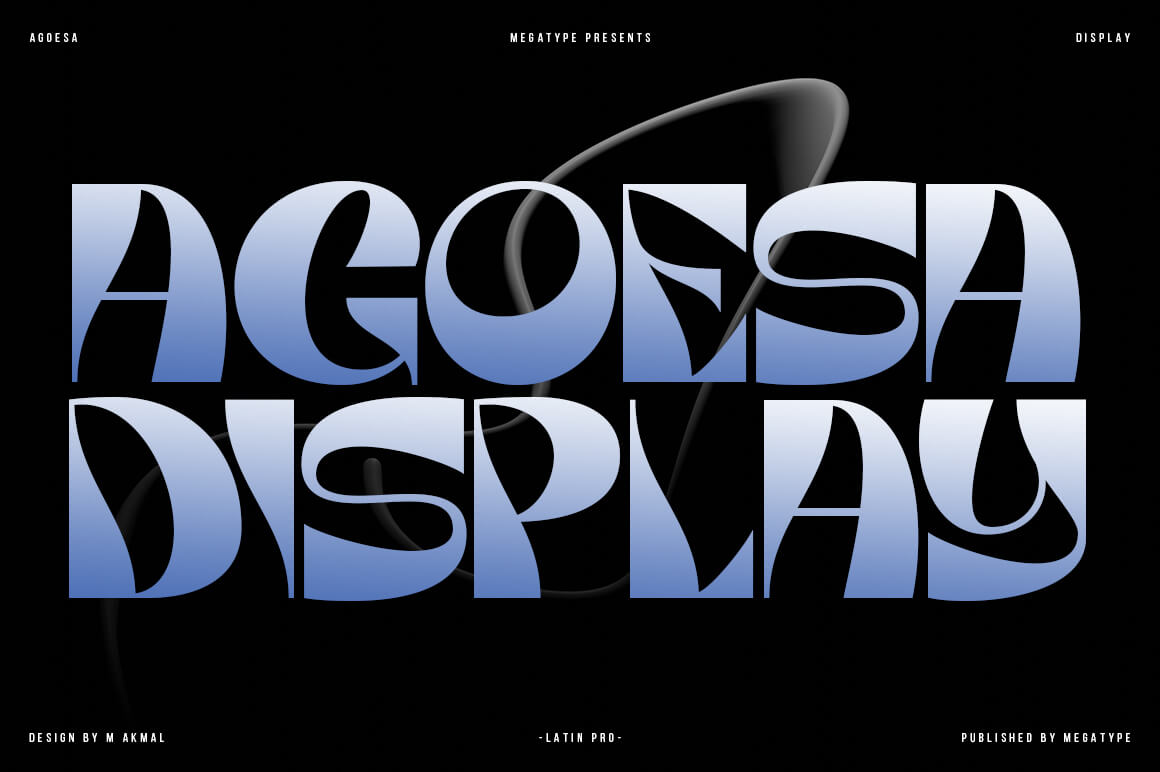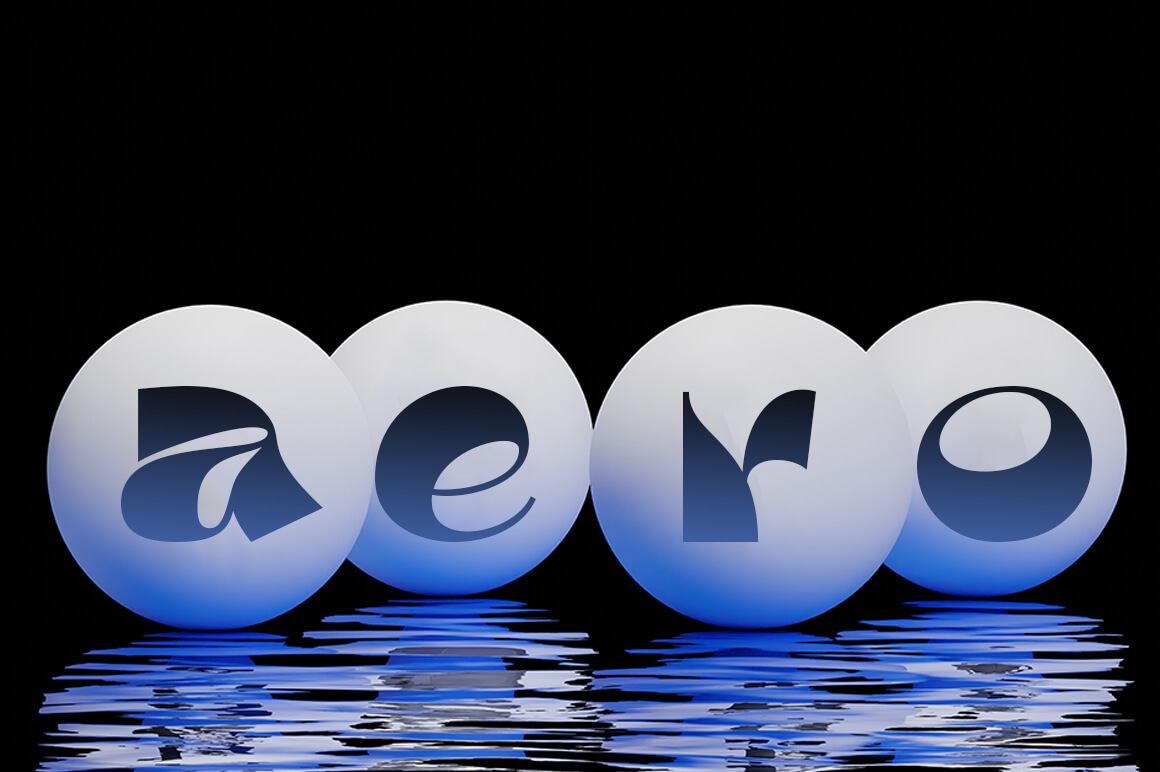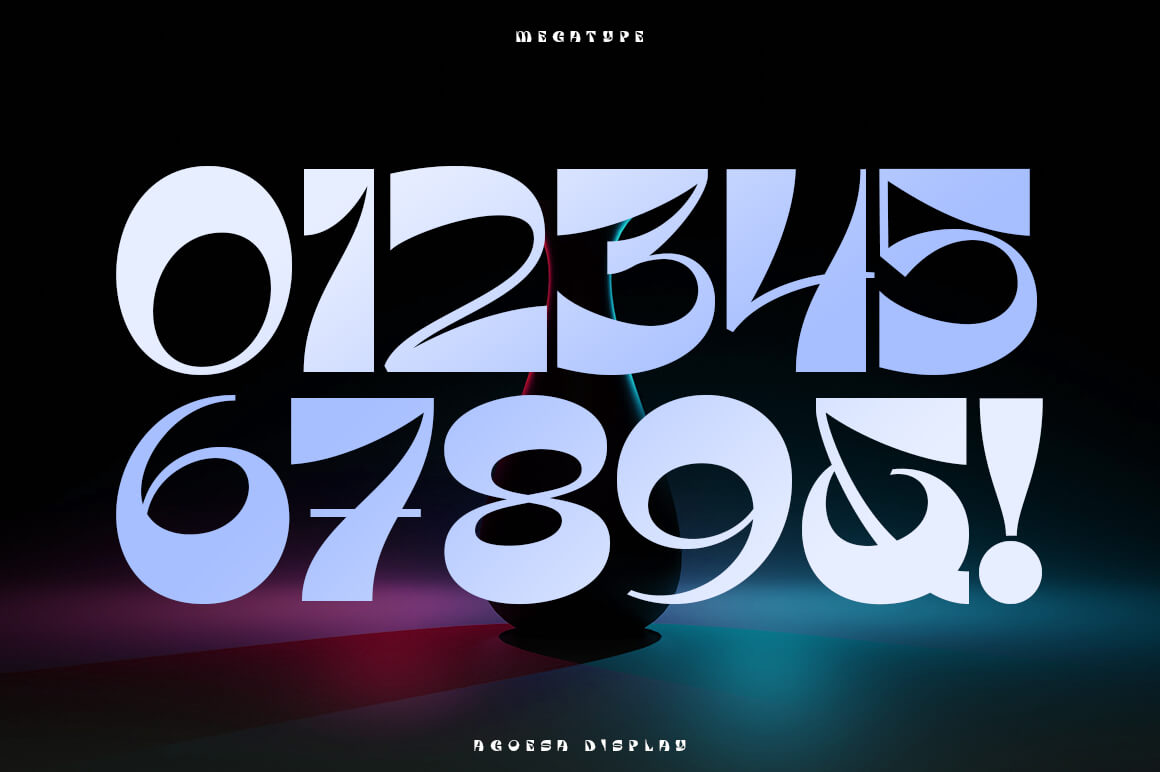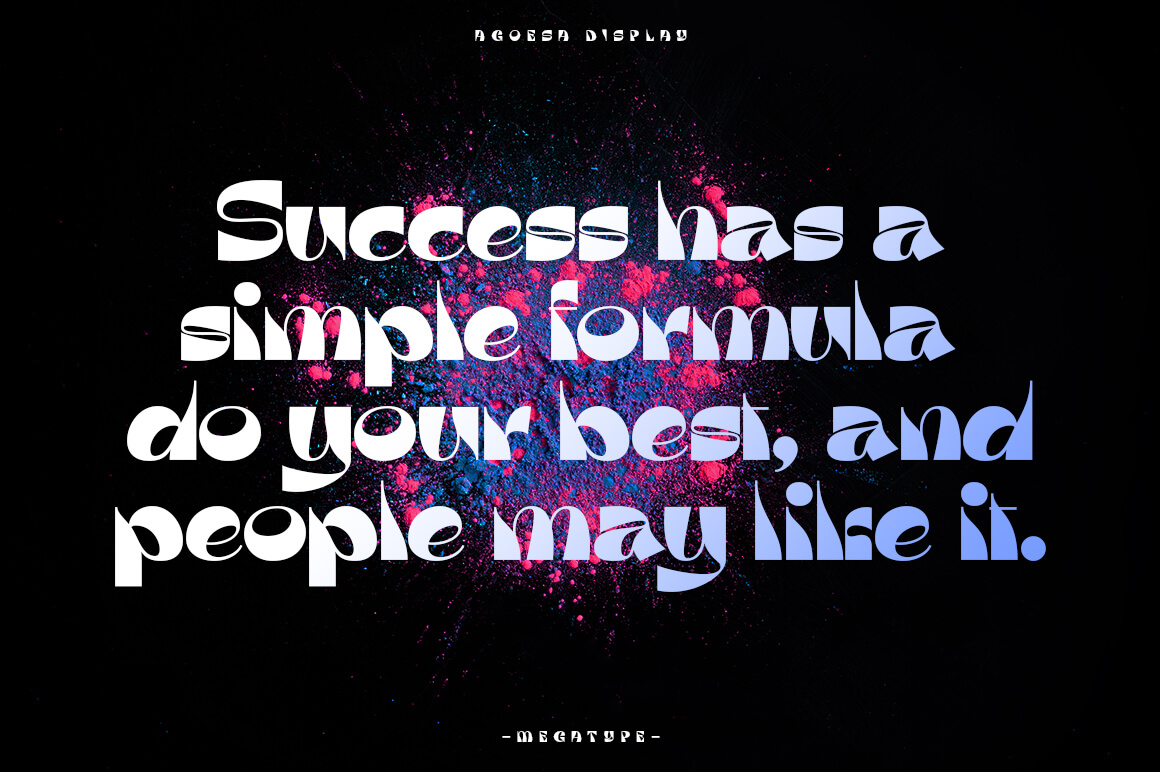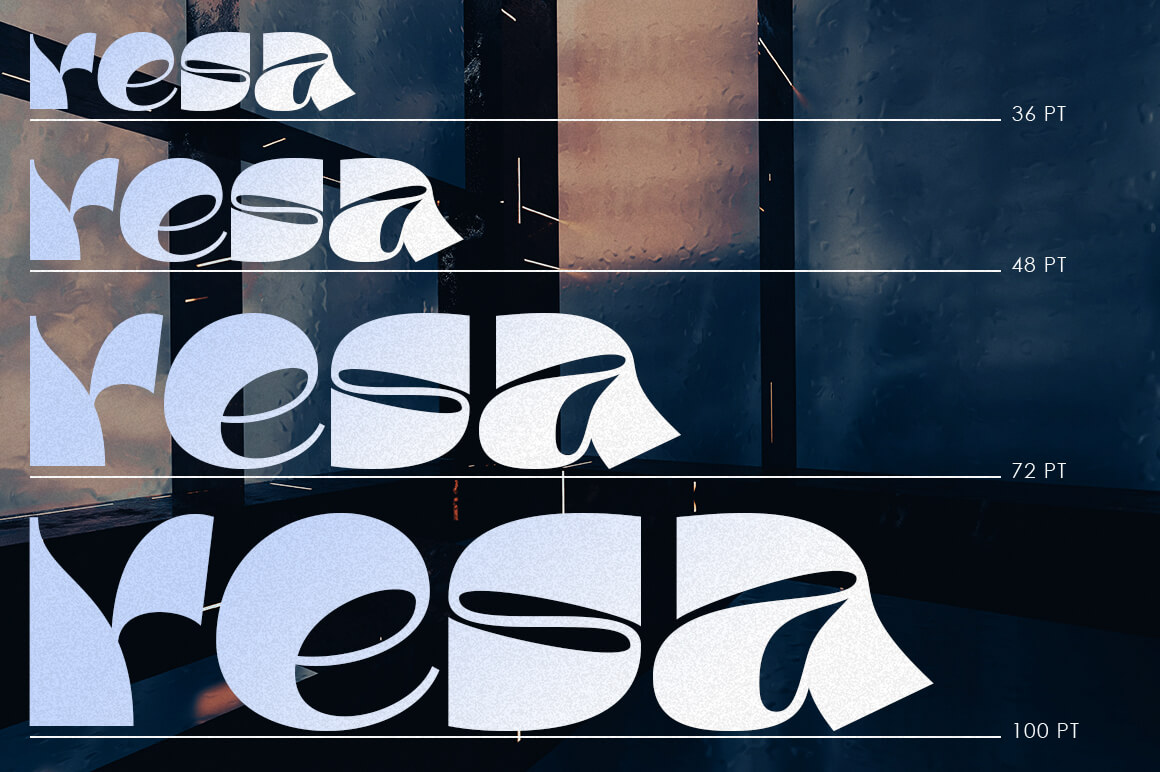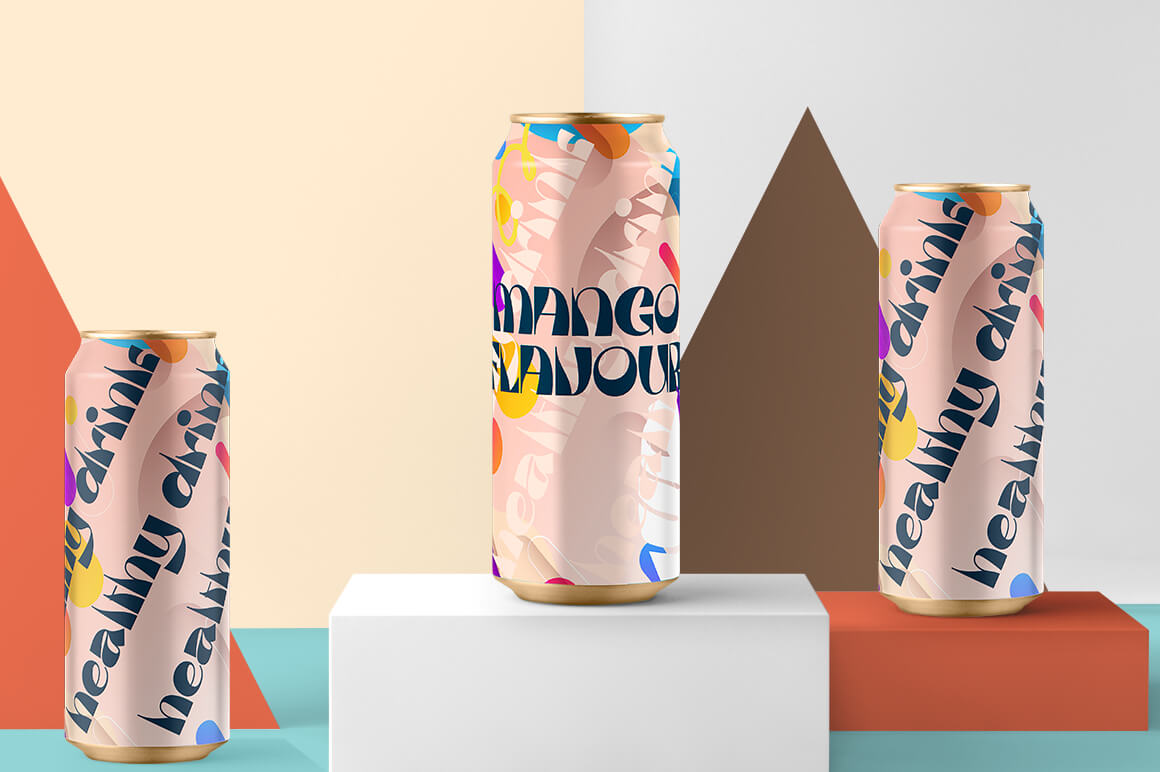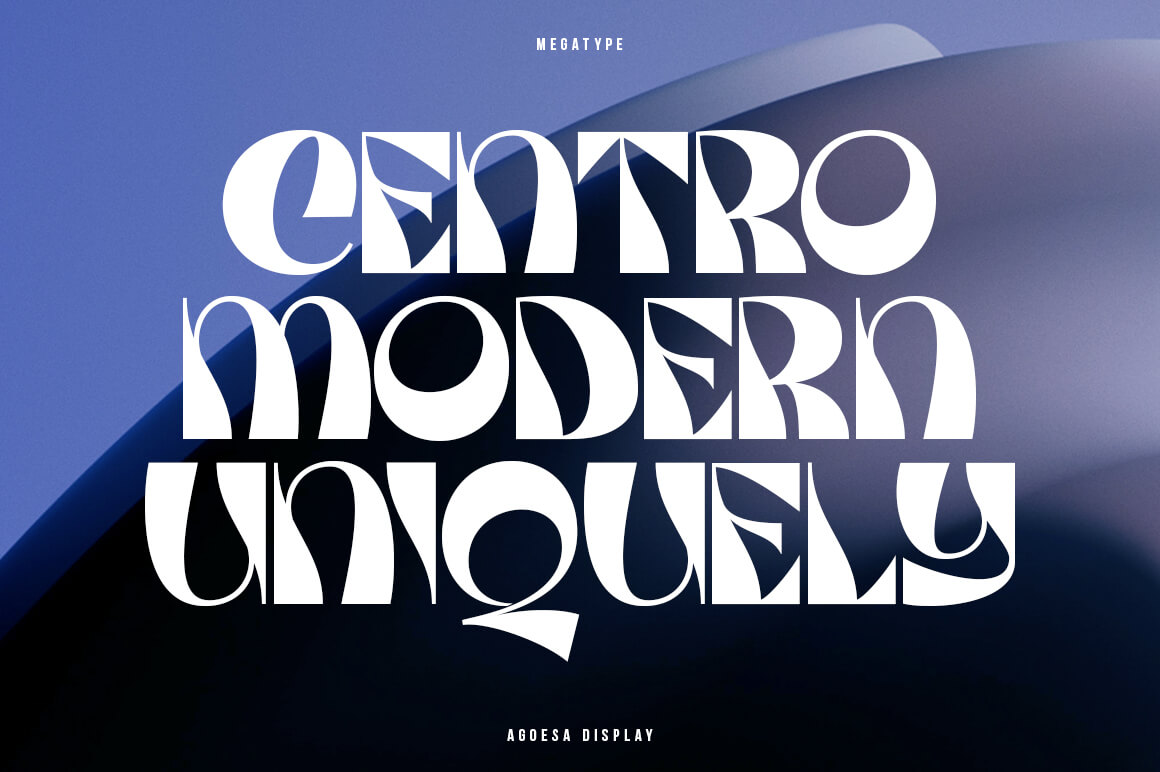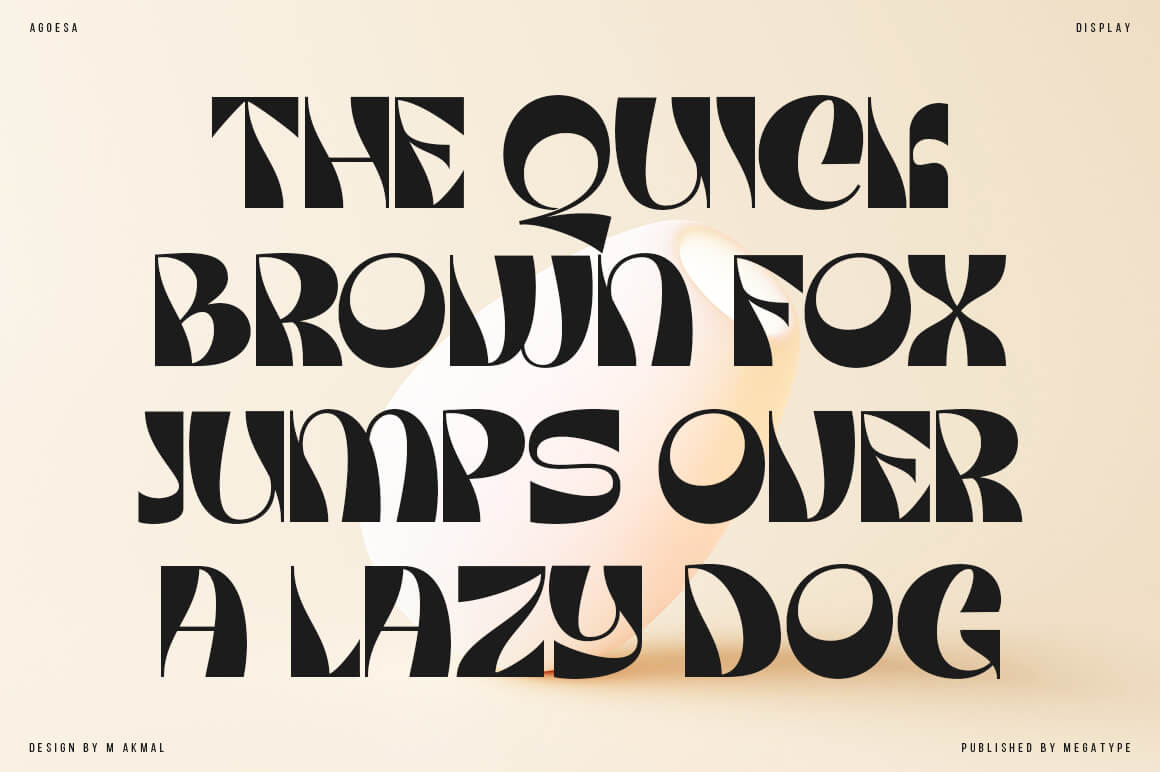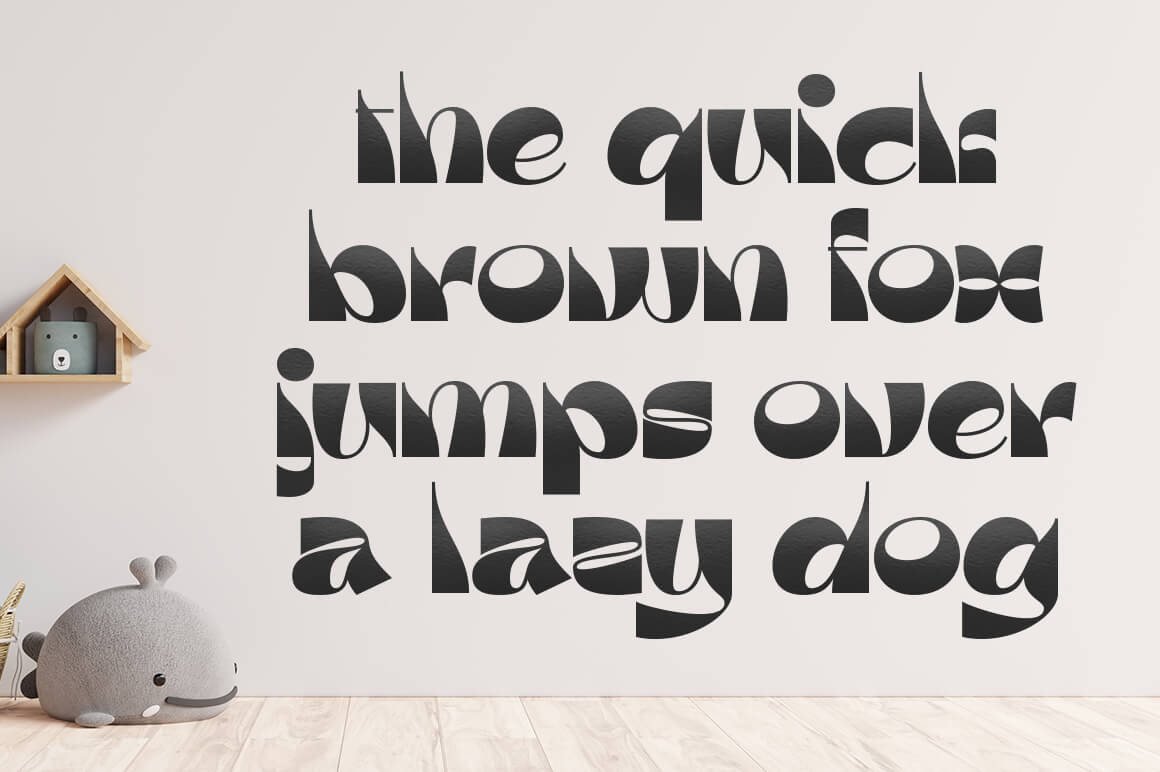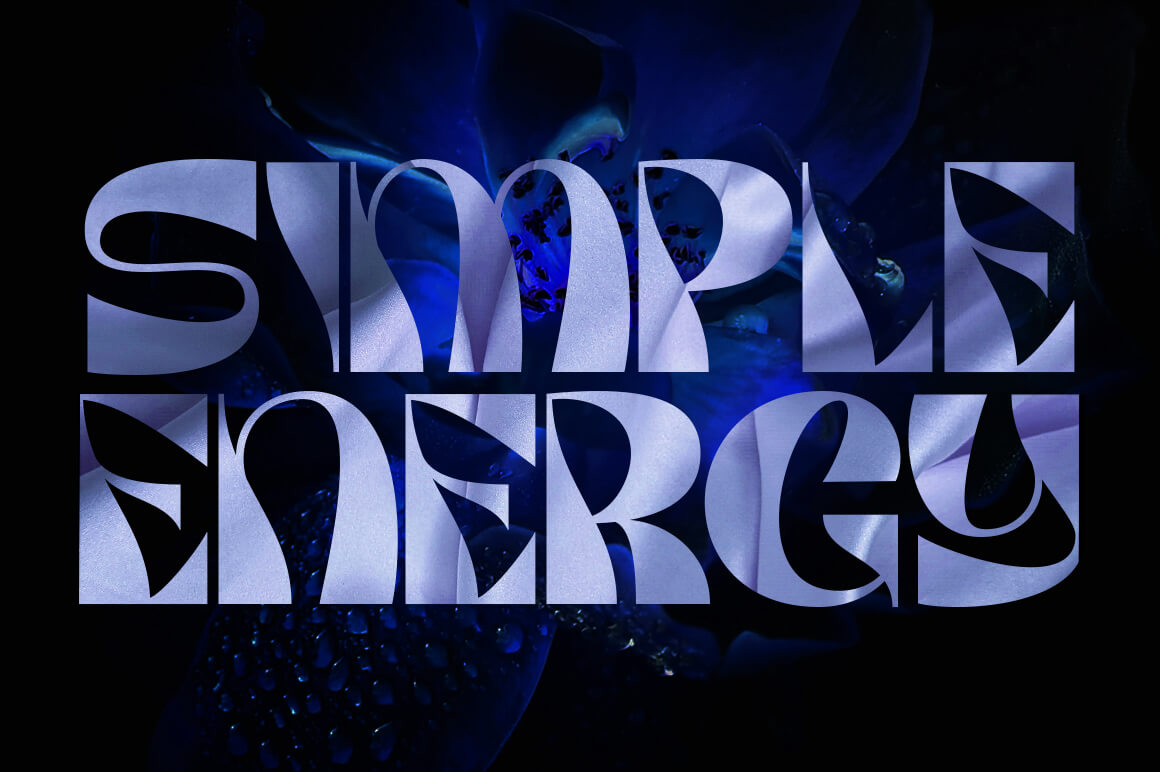
Agoesa is a modern display font with a positive character that is bright, unique and elegant. Its curves give off a friendly and fun personality. Perfect for creating a welcoming atmosphere in any design.